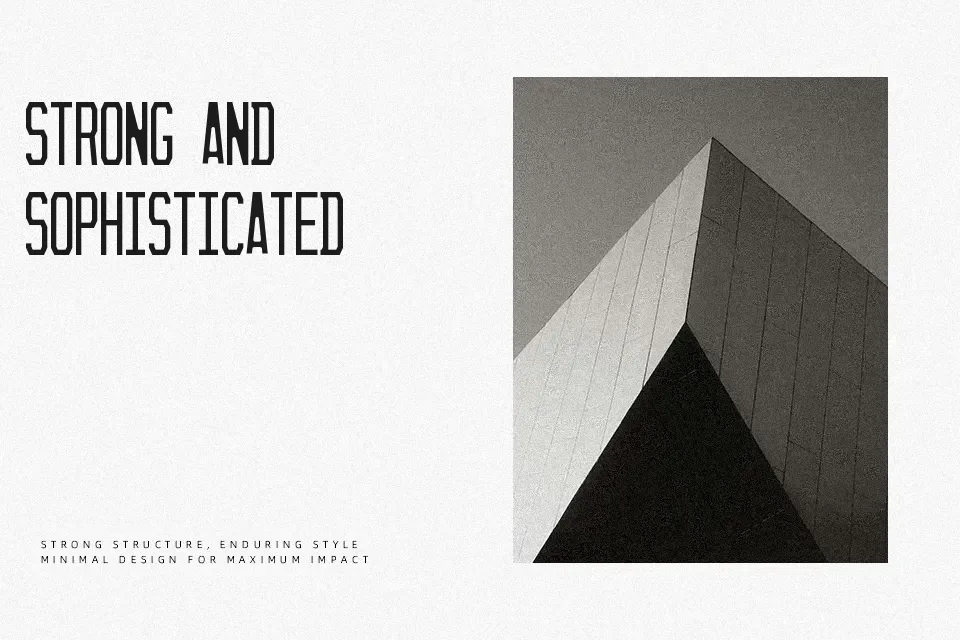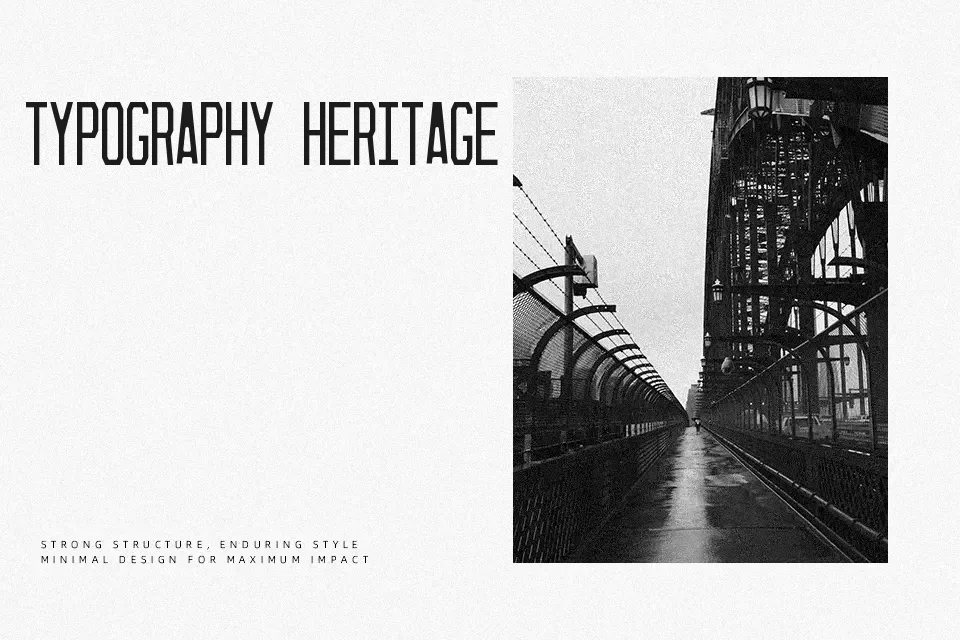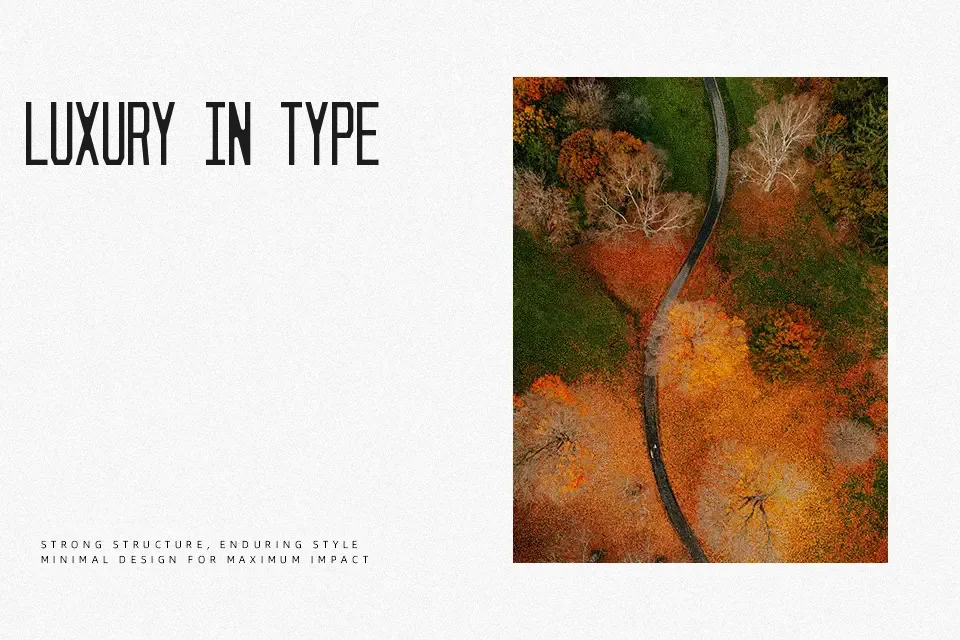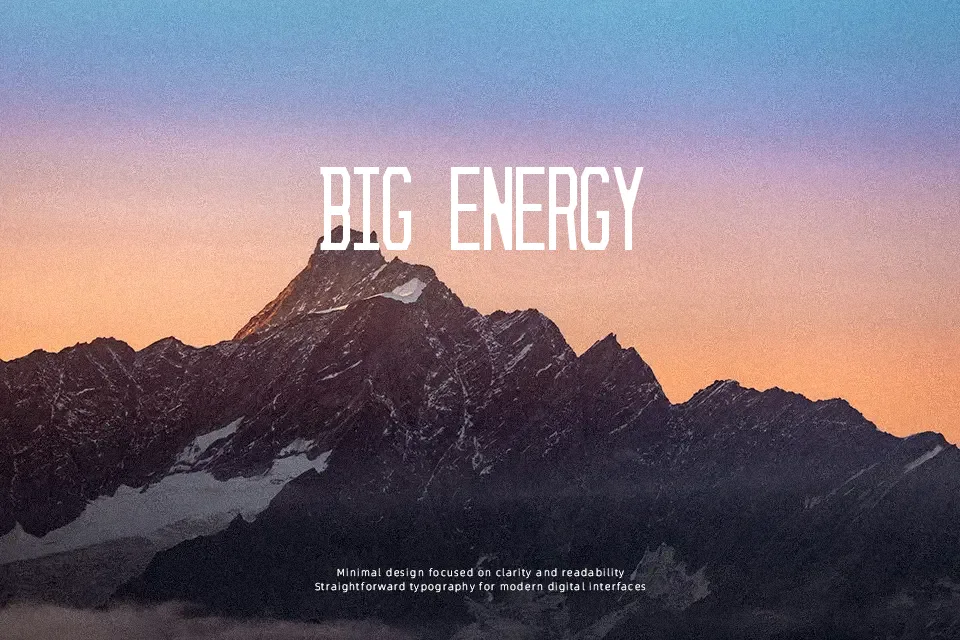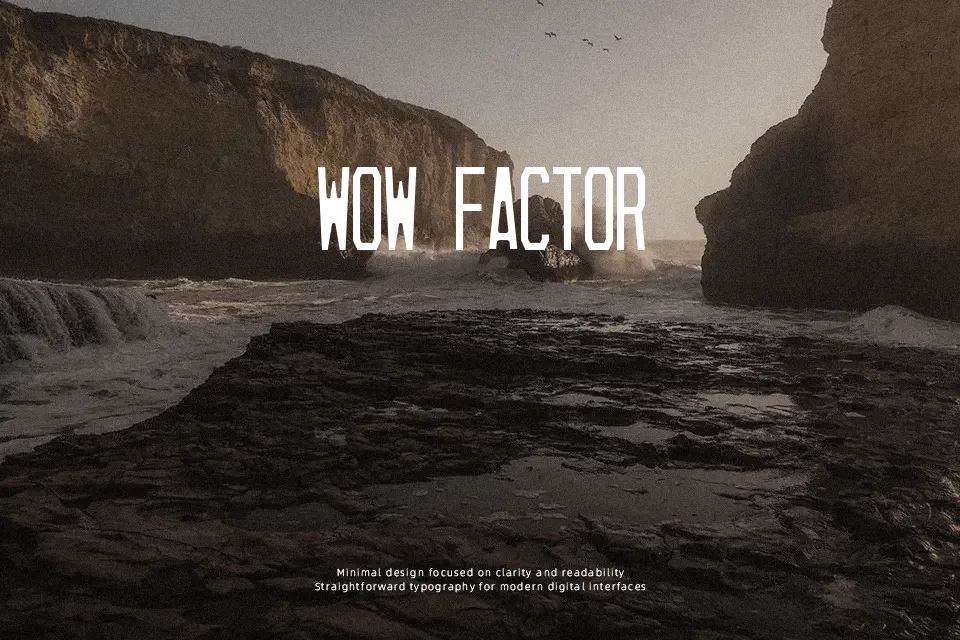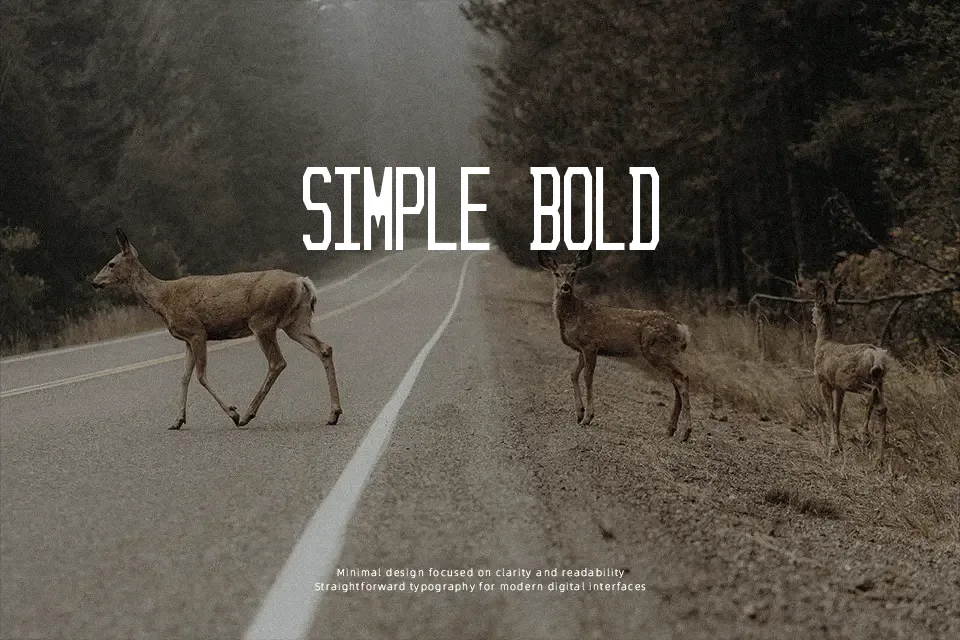
Sunshine State Font
Designed by Steve Ferrera
Characterized by tall proportions and narrow letterforms, Sunshine State Font presents an industrial display aesthetic inspired by stamped metal lettering. The typeface relies on heavy vertical stems, tight horizontal tracking, and softened outer corners that give each glyph a distinct mechanical rhythm. While the rigid geometry maintains sharp distinction at prominent headline scales, dense kerning causes interior counters to close up when rendered at reduced sizes. This makes the design poorly suited for running paragraphs or small technical labels where continuous legibility is essential. In practical applications, the bold strokes create immediate visual presence on souvenir packaging, old-school banners, and retro automotive branding.
Best For: automotive decals,retro travel posters,souvenir merchandise headlines,vintage license plate mockups
Not Ideal For: continuous paragraph text,small interface labels,dense editorial layouts,mobile body copy
Perfect for advertising, branding, and headline, with a bold and condensed style.